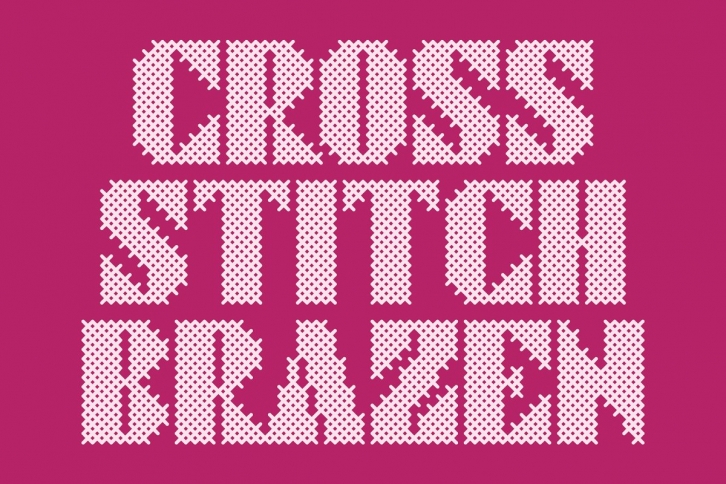
The Cross Stitch Brazen font is for creating designs with letters that appear to be cross stitched for posters, art prints, signage or anything that cross stitched lettering would enhance. It is based on upper case characters 13 stitches tall and contains the upper case characters A-Z, ampersand, question and exclamation marks, bullet, comma, and period.